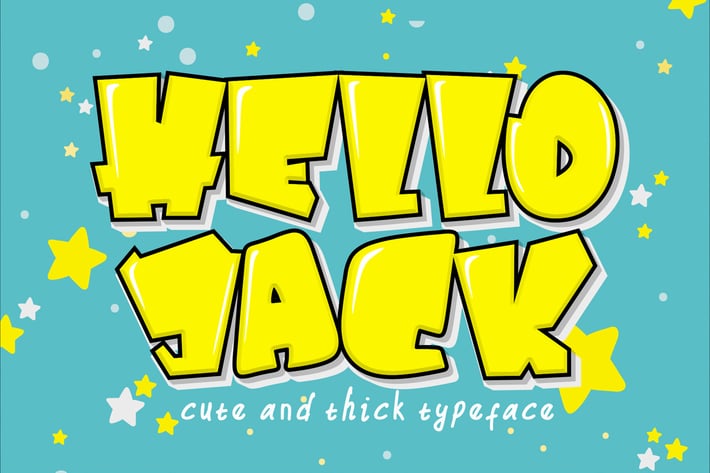
Hello Jack - Thick Display Font
Hello Jack is a funny, bold, and cute display font with a sharp corner. Get inspired by its unique feel, and turn to add a lovely charm to any crafts project, this font is suitable for any project about kids, children, or students, like, a book Cover, baby shower poster, etc.